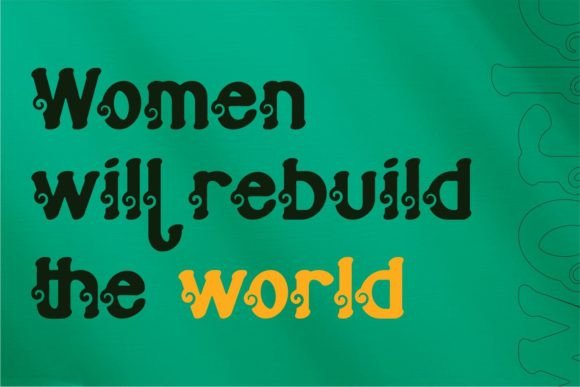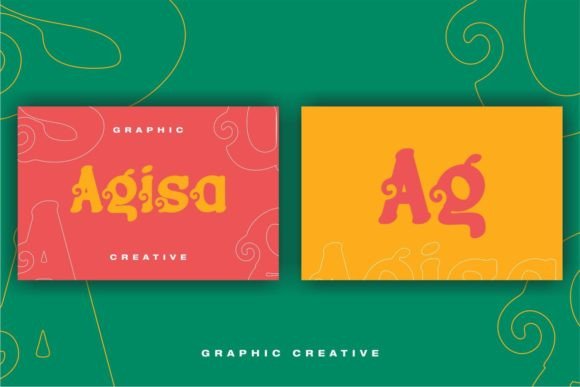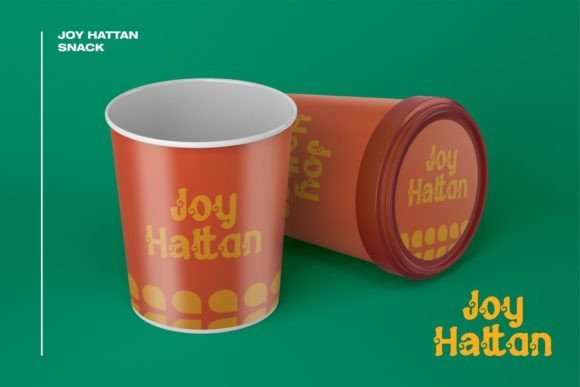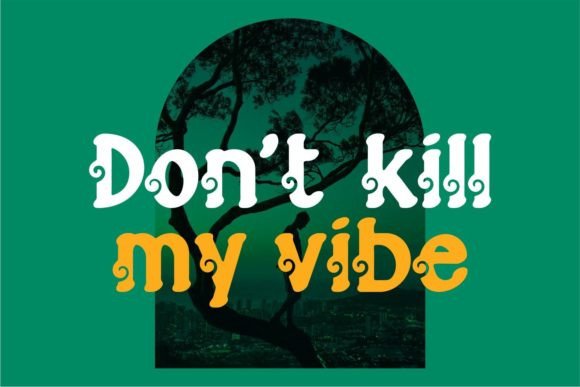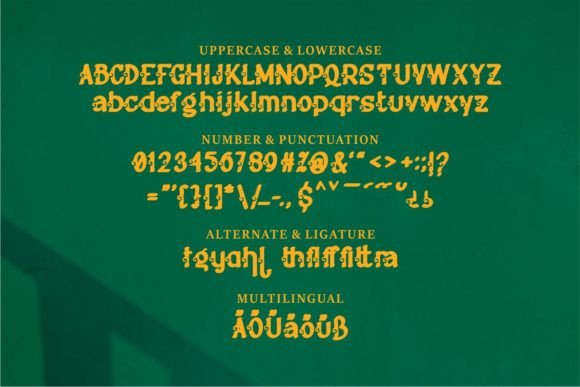
Introducing Galih Font: Elevate Your Designs with Elegance and Sophistication
Are you on the hunt for a font that exudes modernity and sophistication? Look no further than Galih Font, a stunning display font that’s sure to capture your heart. Designed with precision and creativity, Galih is the perfect addition to any design project, whether you’re a seasoned designer or a crafty enthusiast.
The Beauty of Galih Font
Galih Font is a masterpiece of typographic design, boasting a unique and elegant style that’s sure to turn heads. Its modern aesthetic makes it an ideal choice for a wide range of applications, from luxury branding and advertising to packaging and digital media. With Galih, you can add a touch of sophistication and glamour to your designs, elevating them to new heights.
PUA Encoding: Unlock Endless Creative Possibilities
One of the standout features of Galih Font is its PUA (Private Use Area) encoding. This means that you can access a vast array of glyphs and swashes with ease, giving you unparalleled creative freedom. Whether you’re looking to add a personal touch to your designs or create a unique brand identity, PUA encoding makes it easy to do so.
Why Designers and Crafters Love Galih Font
So, what makes Galih Font a favorite among designers and crafters? Here are just a few reasons:
- Unparalleled versatility: Galih Font is perfect for a wide range of applications, from display text to logos and branding.
- Elegant and sophisticated: Galih’s modern aesthetic adds a touch of luxury to any design.
- Easy to use: With PUA encoding, accessing glyphs and swashes is a breeze.
- High-quality design: Galih Font is meticulously crafted to ensure crisp, clean lines and precise typography.
How to Use Galih Font in Your Designs
Ready to fall in love with Galih Font? Here are some tips on how to incorporate it into your designs:
- Pair it with complementary fonts: Combine Galih with other fonts to create a unique and harmonious typographic style.
- Experiment with glyphs and swashes: Take advantage of PUA encoding to add a personal touch to your designs.
- Use it for headlines and titles: Galih Font is perfect for display text, making it ideal for headlines, titles, and logos.
Galih Font is more than just a font – it’s a design experience. With its exquisite and modern aesthetic, PUA encoding, and versatility, it’s the perfect addition to any design project. Whether you’re a seasoned designer or a crafty enthusiast, Galih Font is sure to inspire and elevate your designs. So why wait? Fall in love with Galih Font today and bring your projects to the highest levels!
In conclusion, Galih Font is a true gem in the world of typography. Its unique blend of elegance, sophistication, and versatility makes it a must-have for designers and crafters. With PUA encoding and a wide range of glyphs and swashes at your fingertips, the creative possibilities are endless. So go ahead, give Galih Font a try, and experience the thrill of taking your designs to new heights!